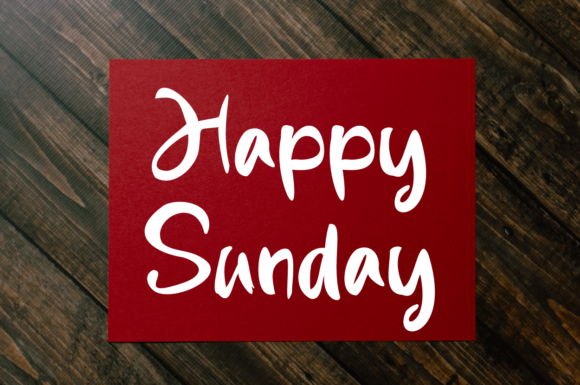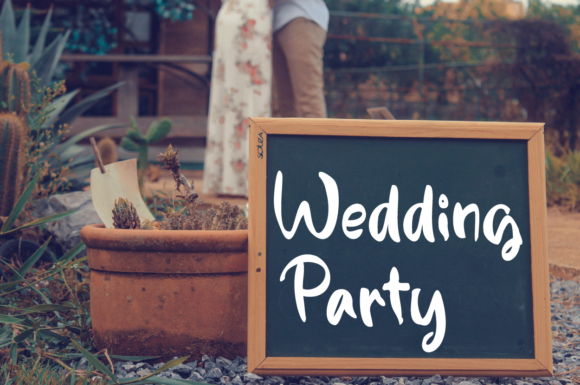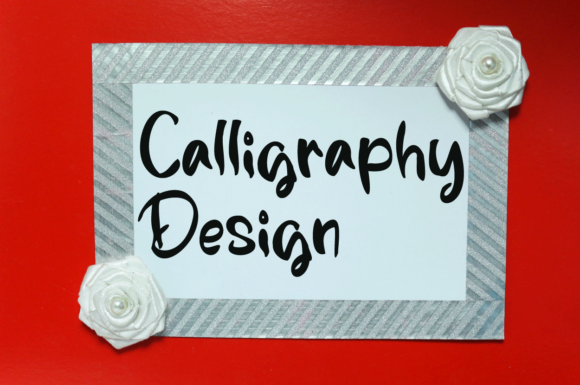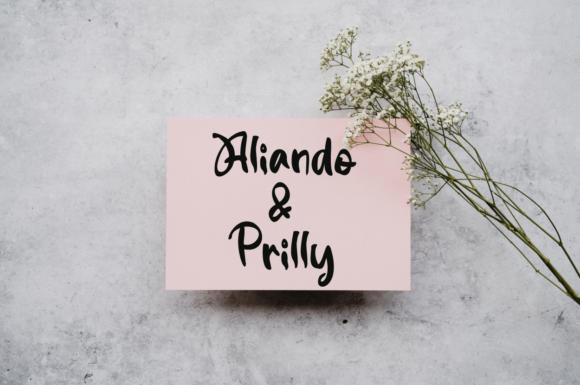
Introduction to Love Batu City Font
As designers, we’ve all been there – staring at a blank canvas, trying to bring a creative project to life. But sometimes, all it takes is the right font to spark inspiration. For me, that font is the stunning Love Batu City Font. Its elegant, handwritten style is like a breath of fresh air, and I just can’t get enough of it.
With its extremely cursive design and letters that seem to dance across the page, Love Batu City Font is the perfect addition to any design library. Whether you’re working on a high-end branding project or a personal creative endeavor, this font is sure to elevate your work. And the best part? It’s a free download, making it an accessible design resource for designers of all levels.
From logos to typography, Love Batu City Font is a versatile tool that can be used in a variety of ways. Its transparent background makes it easy to layer and customize, while its high-quality design ensures that it will look great on any project. In this article, we’ll take a closer look at what makes Love Batu City Font so special, and how you can use it to take your designs to the next level.
Key Features of Love Batu City Font
- Unique and creative design, ideal for use in various creative projects
- Designed to evoke a sense of modernity and sophistication, making it perfect for use in urban-themed designs
Honest Review: Love Batu City Font
I recently stumbled upon the Love Batu City Font while searching for a design resource for a creative project. I was immediately drawn to its modern and sleek aesthetic.
Here’s what works well: ✨ The font has a transparent background, making it easy to layer and blend with other design elements. The high quality of the font is evident in its crisp lines and clean typography. I also appreciate the versatility of the font, as it can be used for a variety of design applications, from logos to signage.
- Modern and sleek aesthetic
- High quality
- Versatile
However, there are a few limitations: ⚠️ The font may not be suitable for small-scale text, as it can appear pixelated at certain resolutions. Additionally, the font family is limited to a single style, which may not be ideal for projects that require a range of font styles.
Overall, I’m impressed with the Love Batu City Font and would recommend it to designers looking for a modern and high-quality design resource. Its free download option and versatility make it a valuable addition to any design library.
Designing with Love Batu City Font
When designing with the Love Batu City Font, consider using it for creative projects such as social media graphics, posters, and flyers. This font is ideal for adding a touch of elegance and sophistication to your designs.
The Love Batu City Font is commonly used for:
- Posters and flyers for events and promotions